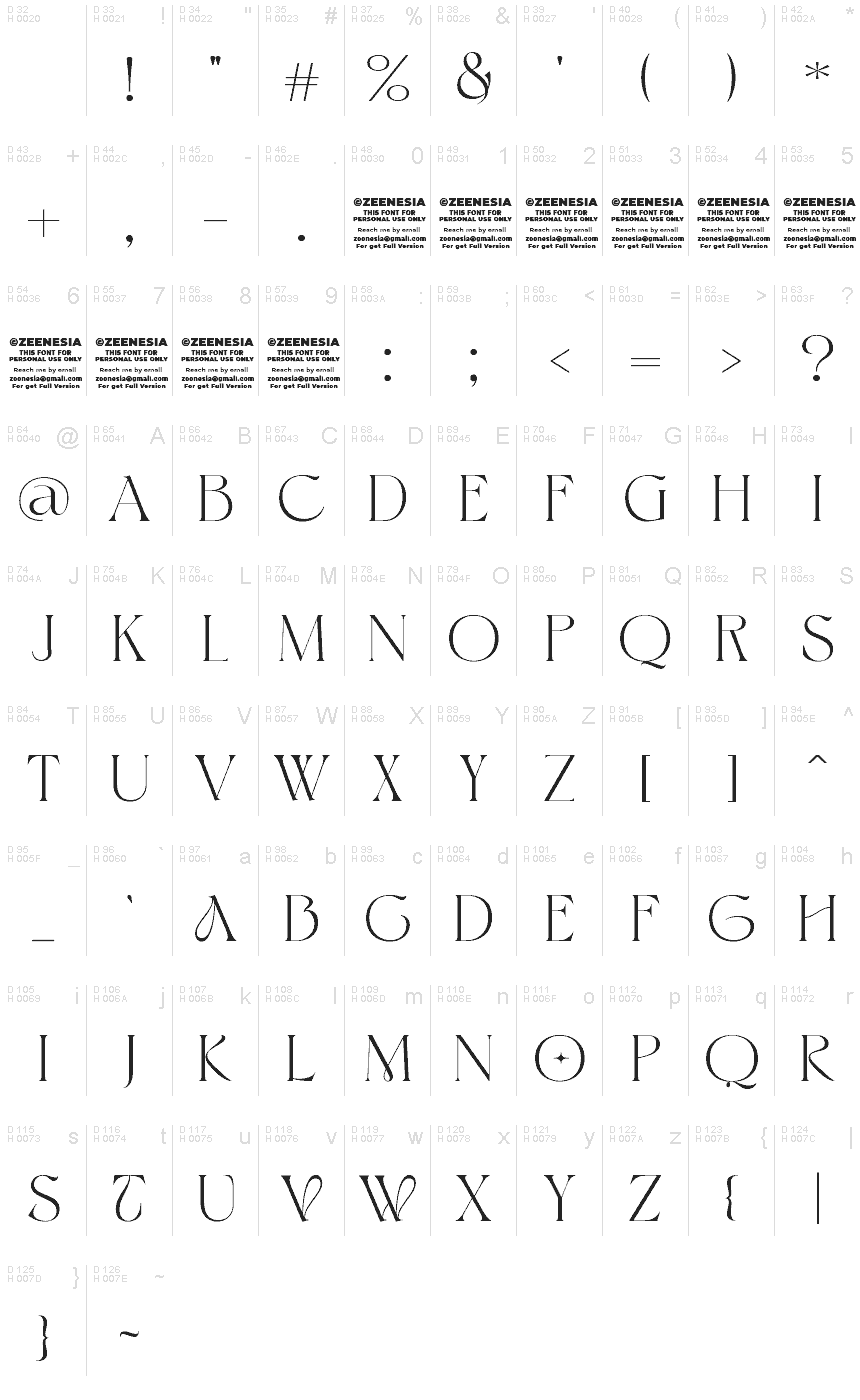
Selaris - Personal Use Only
Selaris font by Zeenesia Studio is a soft yet decorative serif typeface developed in a light weight. The elegant curves and spiked edges of this font give it a certain personal style while still maintaining the general concept of a sophisticated, classic font. Selaris is overall formal, refined, and will capture attention from start to finish.